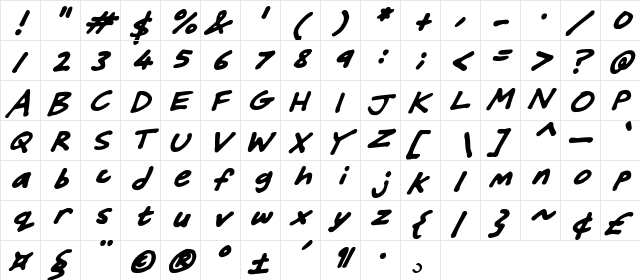
Friendly Felt Tips Italic
Design Context for Friendly Felt Tips Typeface
Friendly Felt Tips is a composed and adaptable typeface that performs quietly and consistently across a wide range of design contexts. Its italic angle brings a sense of urgency and motion to the letterforms.
Pro Tip: Use Friendly Felt Tips for emphasis, pull quotes, and subheadings where its slanted energy can add rhythm to the layout.